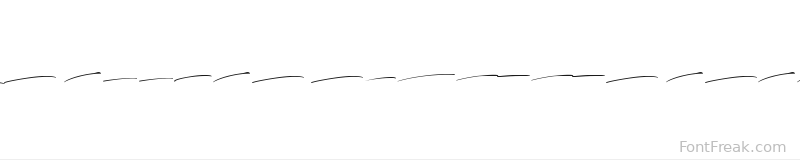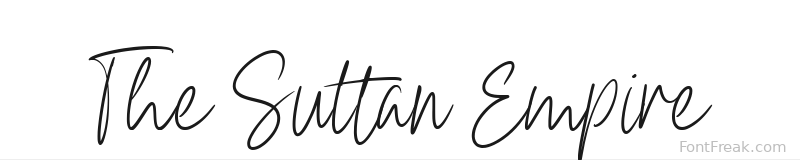
TheSultanEmpire
The Sultan Empire
The Sultan Empire Swash
About TheSultanEmpire
TheSultanEmpire font by Kong Font is a striking script typeface that beautifully blends elegance and artistic flair. This font features a fluid stroke weight that varies throughout the letters, creating a dynamic visual rhythm. The contrast between thick and thin lines adds depth, while the graceful swashes and curls of certain characters evoke a sense of sophistication. The spacing is thoughtfully designed to maintain readability while allowing the decorative elements to shine, making it a perfect choice for various creative projects.
This versatile font is particularly well-suited for wedding invitations, where its romantic curves can enhance the overall aesthetic. It also shines in branding materials for boutique shops, where its unique style can help a small business stand out. Additionally, TheSultanEmpire font works exceptionally well on restaurant menus, adding a touch of class that can elevate the dining experience. For graphic designers working on promotional materials, this font can lend an air of creativity and professionalism, making it a valuable asset in their toolkit.
Target audiences for TheSultanEmpire font include graphic designers seeking to add a unique touch to their projects, small business owners looking to create memorable branding, and content creators wanting to enhance their visual storytelling. With its artistic qualities and free licensing, TheSultanEmpire font free download presents an accessible option for anyone looking to elevate their design work.
What sets TheSultanEmpire apart is its distinctive blend of charm and versatility. It effortlessly captures attention while remaining functional, making it an ideal choice for a wide range of applications. Whether you’re crafting a personal project or professional materials, this font is sure to leave a lasting impression.